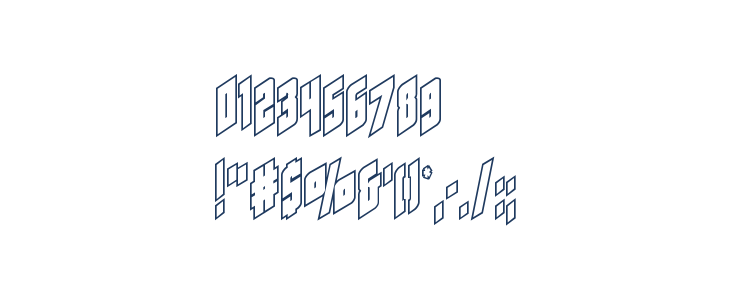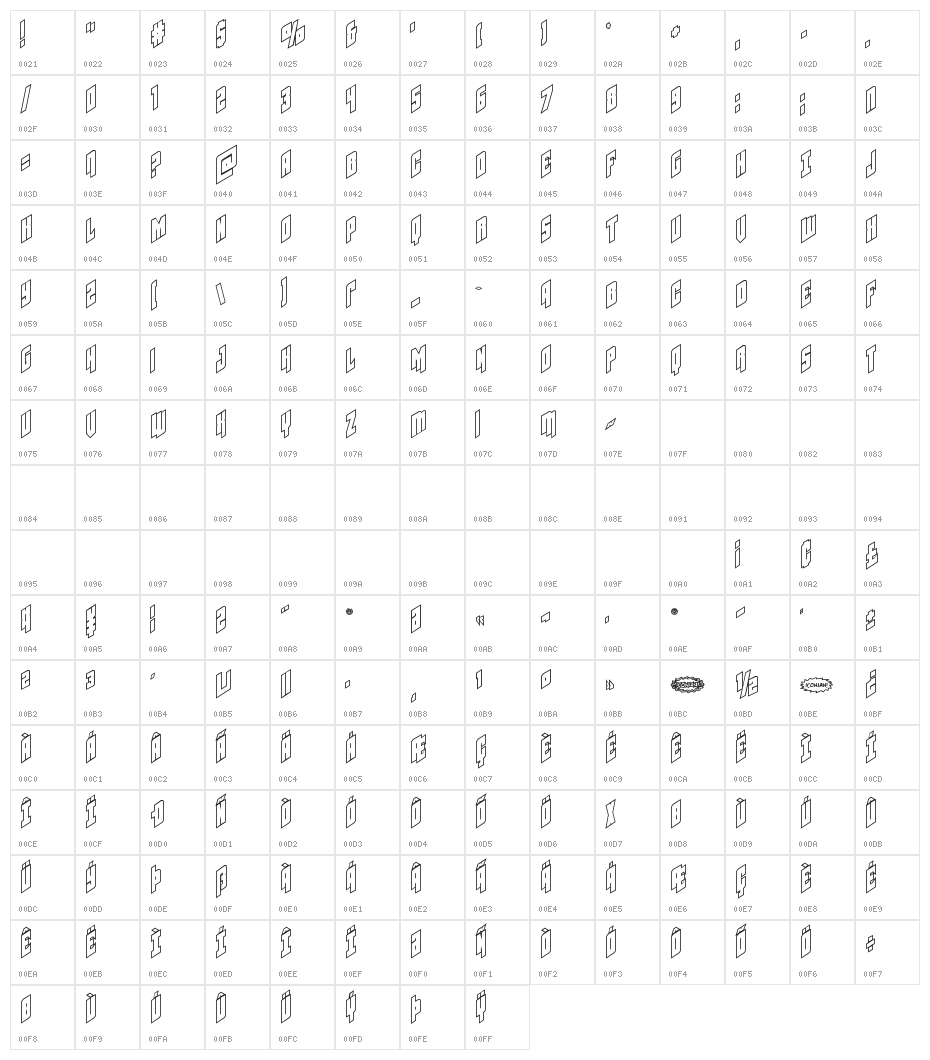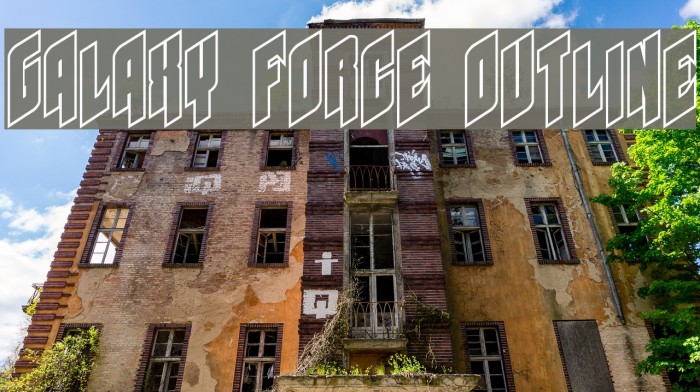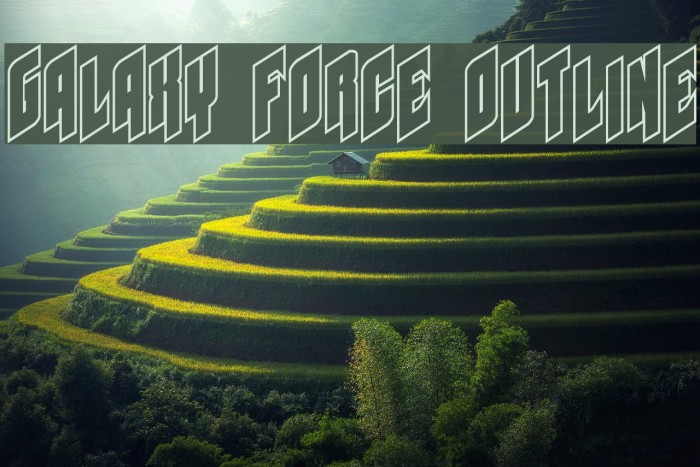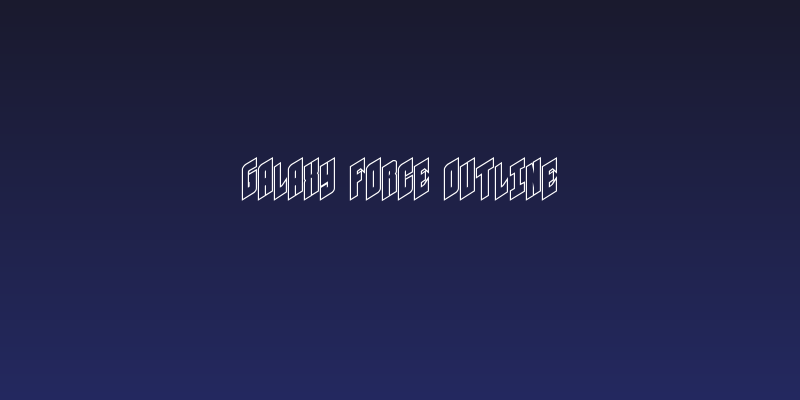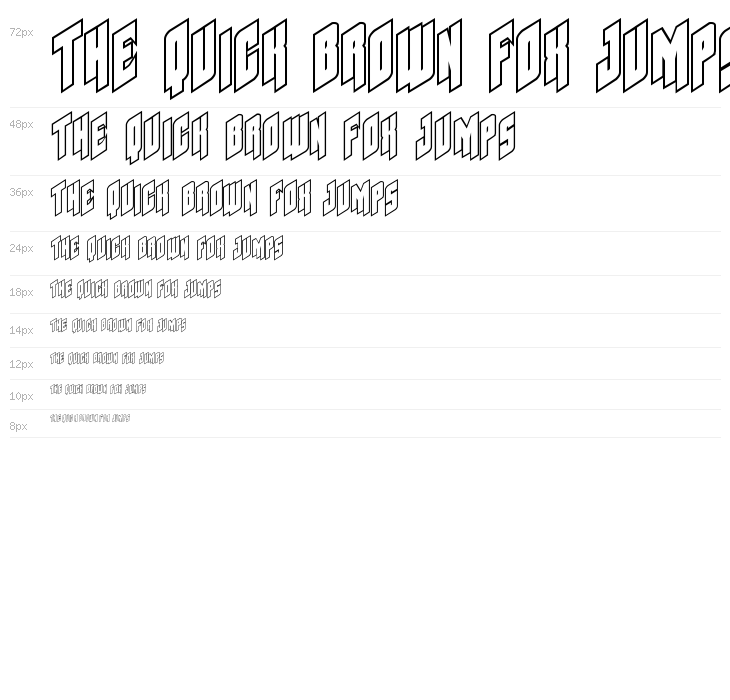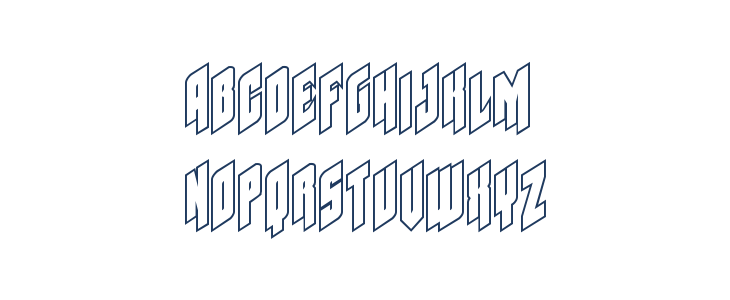
Galaxy Force Outline Font
Galaxy Force Outline Description
This font features a bold, futuristic design with an outline style that gives it a three-dimensional appearance. The characters are angular and geometric, with sharp edges and a consistent slant that suggests movement and dynamism. The uppercase letters are particularly striking, with a strong presence that commands attention. The numbers and special characters maintain the same bold outline, ensuring consistency across all glyphs. This font is ideal for projects that require a modern and edgy look, such as sci-fi themes, gaming titles, or tech-related branding.